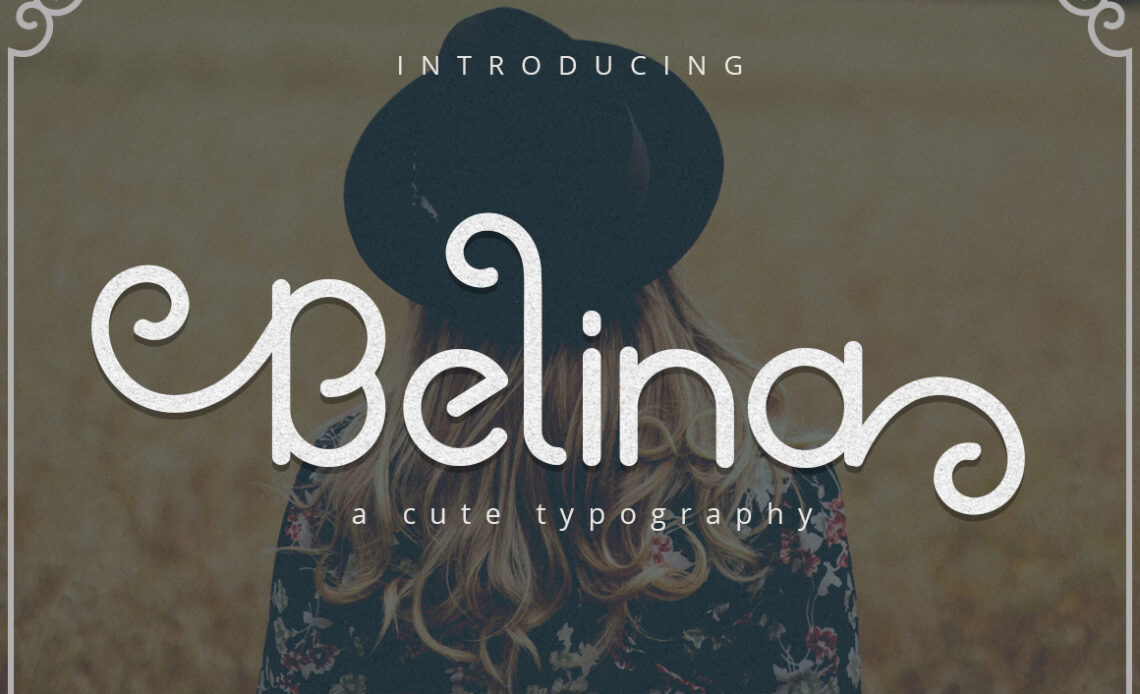
Behold, Belina Font, a symphony of elegance and charm, ready to grace your creative endeavors with its disarming simplicity and undeniable allure. Immerse yourself in a world of visual delight as Belina's meticulously crafted characters dance across the screen, captivating your audience with their inherent warmth and softness.
Crafted with the utmost care and attention to detail, each letterform in the Belina font family exudes a sense of playfulness and joy, making it the perfect choice for a wide range of design projects. Whether you're working on branding, invitations, product packaging, or apparel, Belina's versatility knows no bounds.
Picture the radiant smile of a child receiving an invitation adorned with Belina's whimsical charm. The font's ability to evoke emotions and create a lasting impression is simply magical. With Belina, your designs will dance off the page, capturing hearts and igniting imaginations.
Belina's versatility extends far beyond its initial applications. Use it to craft eye-catching headlines that demand attention, or incorporate it into your social media graphics to elevate your online presence. Belina has the power to transform ordinary text into captivating works of art, leaving your audience spellbound.
So, embark on this creative journey with Belina Font, and let your designs bloom with newfound beauty and sophistication. Don't settle for ordinary fonts that fade into the background. Embrace Belina's unique charm, and watch as your creations come alive with a captivating aura that will leave an indelible mark on your audience.